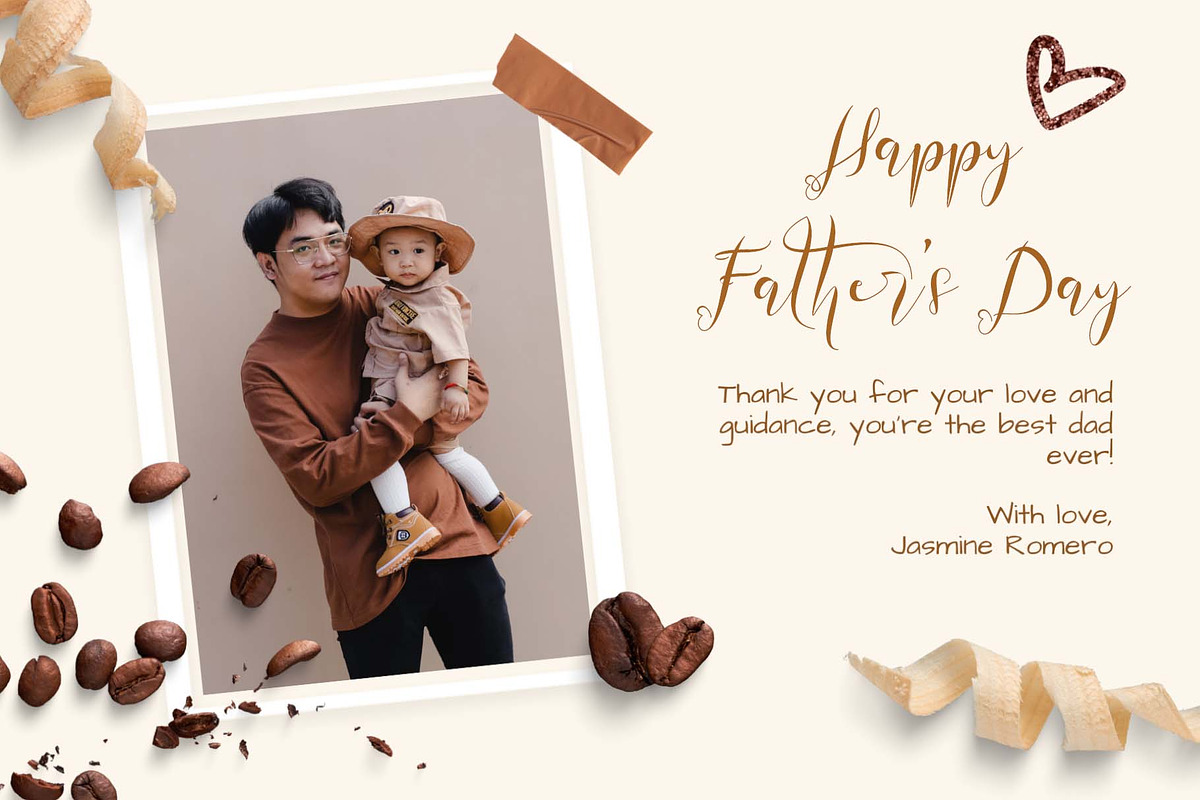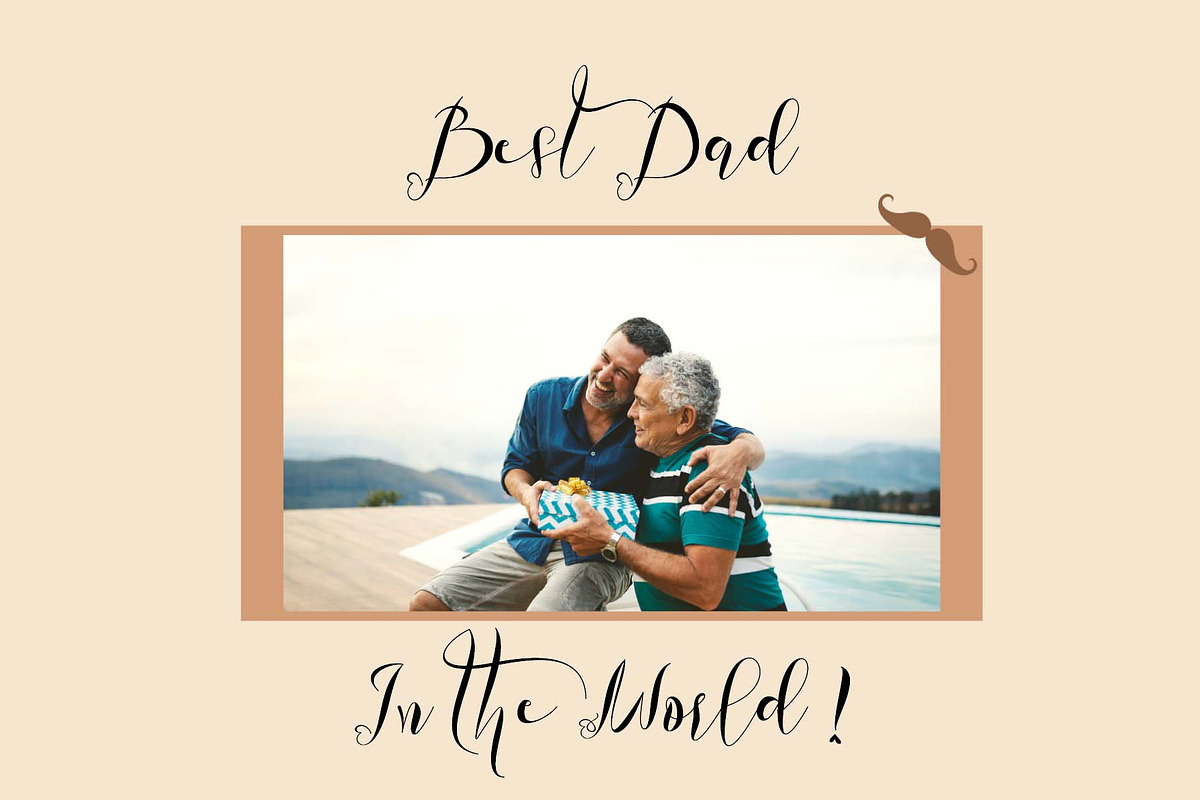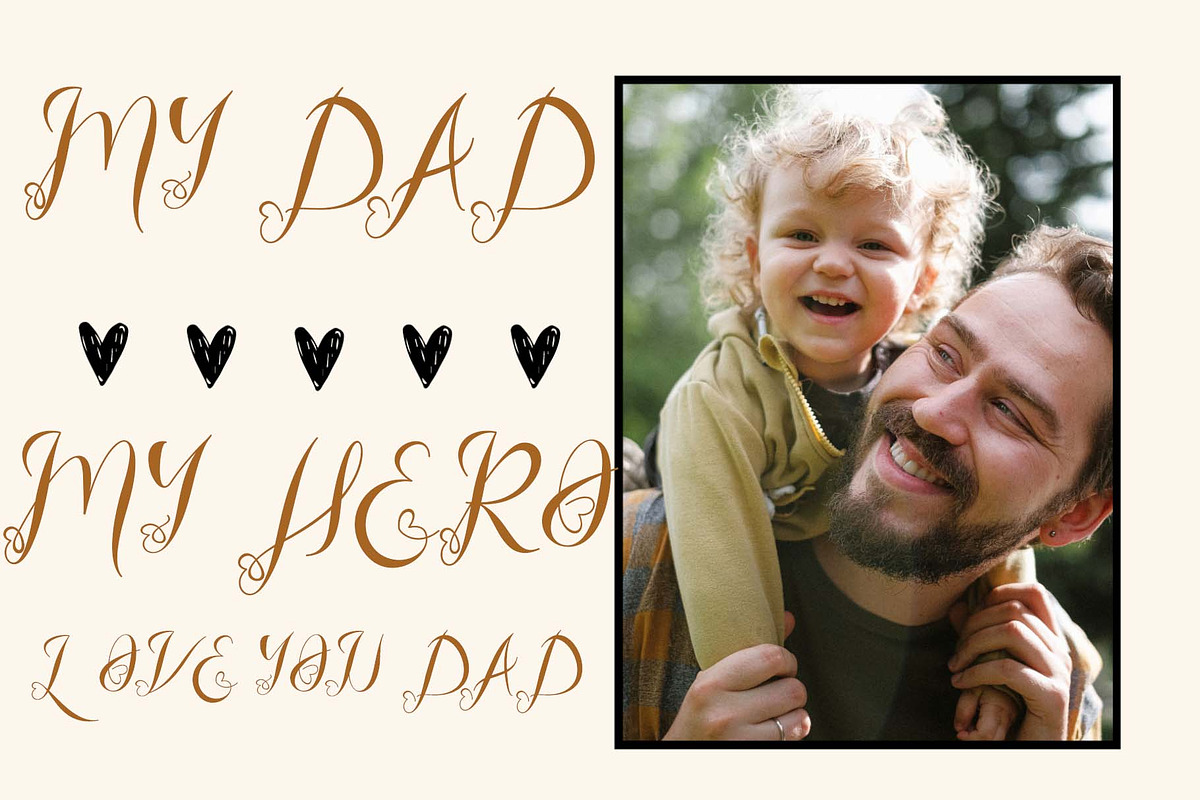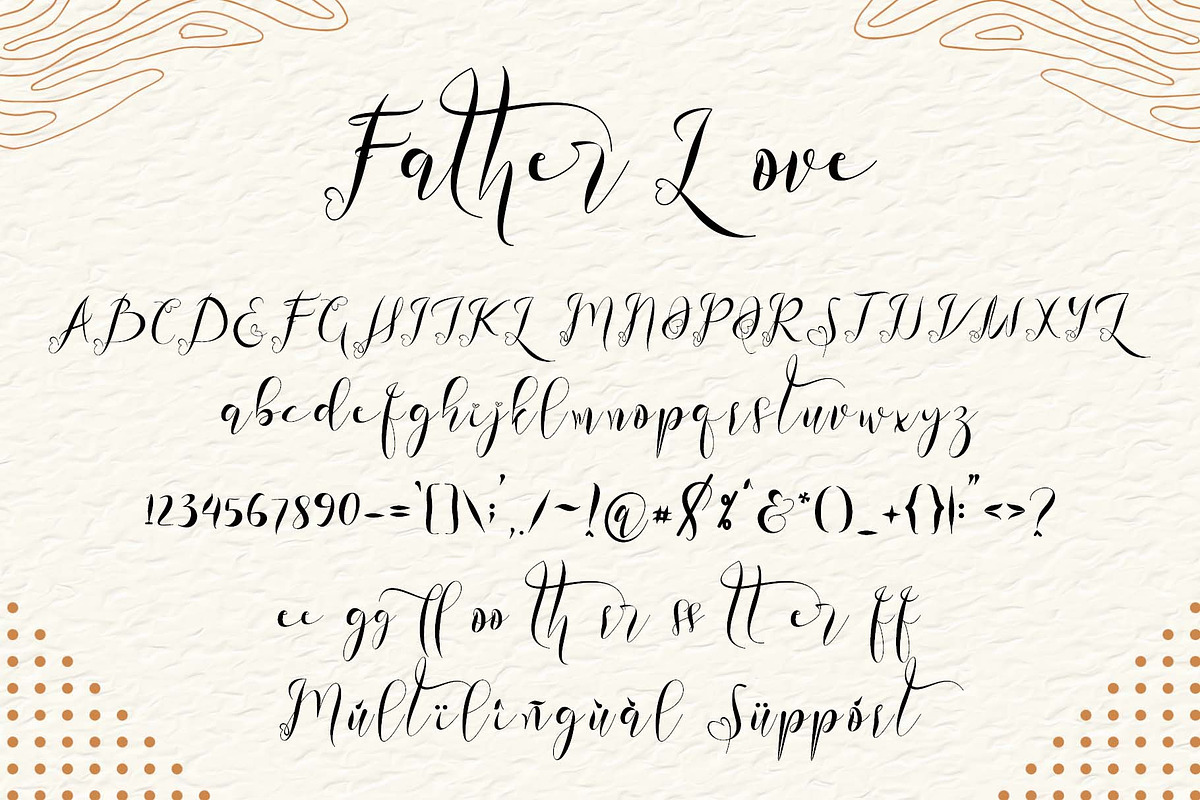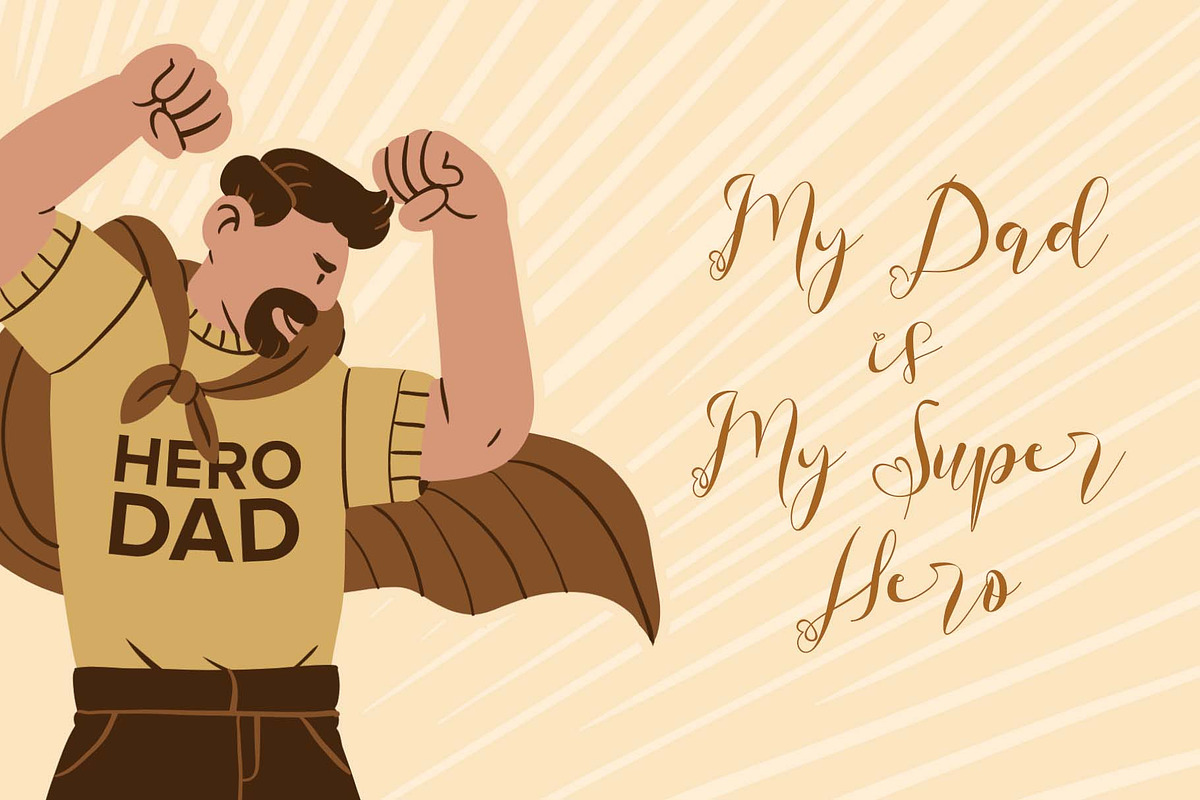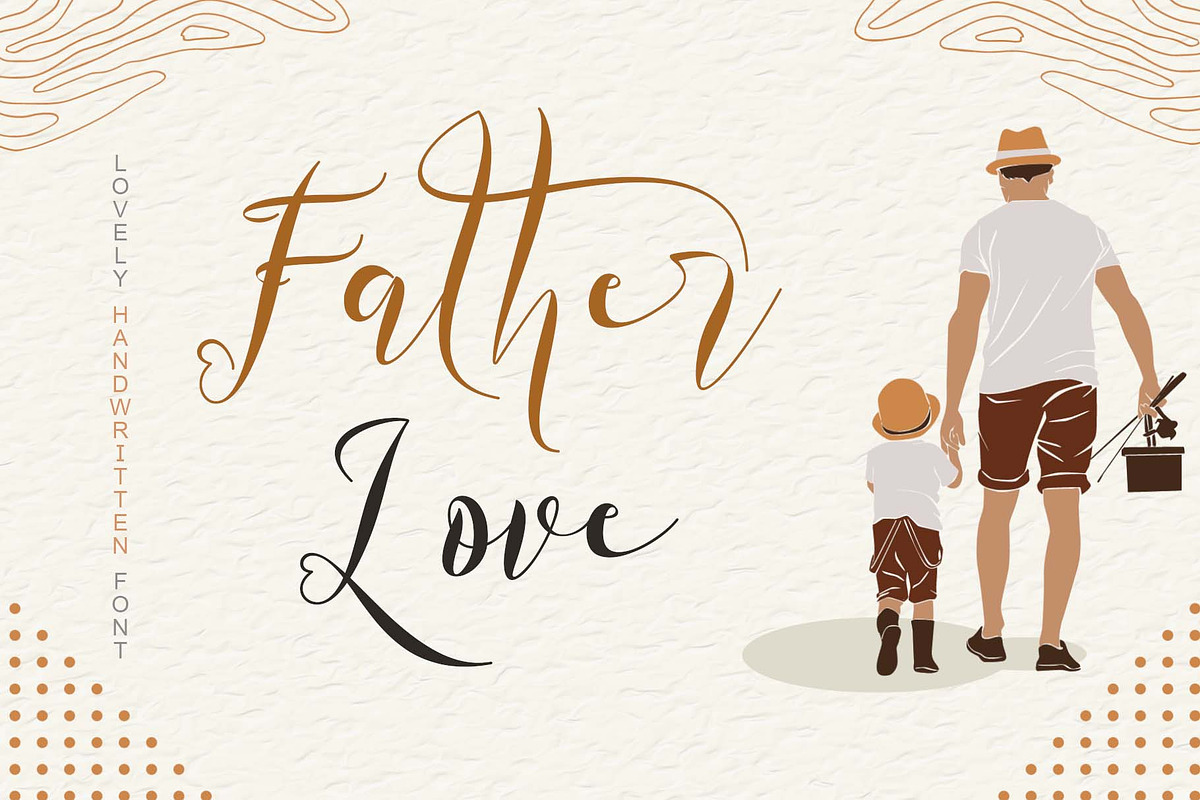
Father Love
"Father Love" is a beautiful and unique handwritten font. This font is equipped with uppercase, lowercase, numerals, punctuation, ligatures, and multilingual support. This font is perfect for Christmas, Father's Day, Memorial Day, the 4th of July, teacher appreciation, graduation, and others.